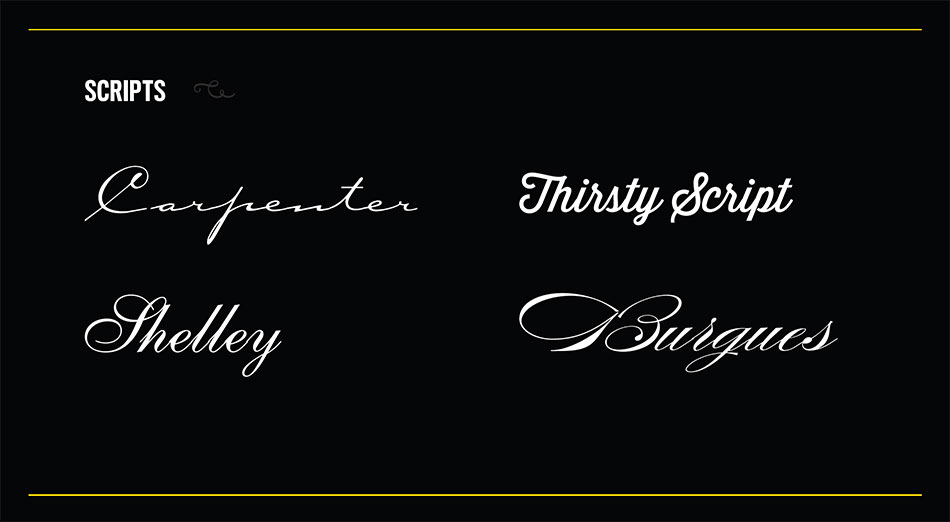
“What typography does is communicate and connect and has such an ability to speak to particular time and place and speak to human experience.”
What is the future of typography, as our lives are becoming more digital? Gemma O'Brien is on the show from her studio in Sydney, Australia, and she will explore this question while we have a conversation about her philosophy behind the trend of authenticity in design and why she thinks the future of typography is human.
In this discussion, Gemma and I invited the live audience to contribute with ideas about the future of typography and where they feel it’s going.
Michael’s typography lesson was three things to keep in mind when choosing script typefaces. Some great tips if you cannot hand-letter your type like Gemma O’Brien.
- The Marks of Desire wordmark Michael spoke about that uses the Erotica inline typeface.
- The four script fonts Michael referred to: Carpenter Script, Thirsty Script, Shelley Script, and Burgess Script (as he teaches more about in our Type 1 Class).